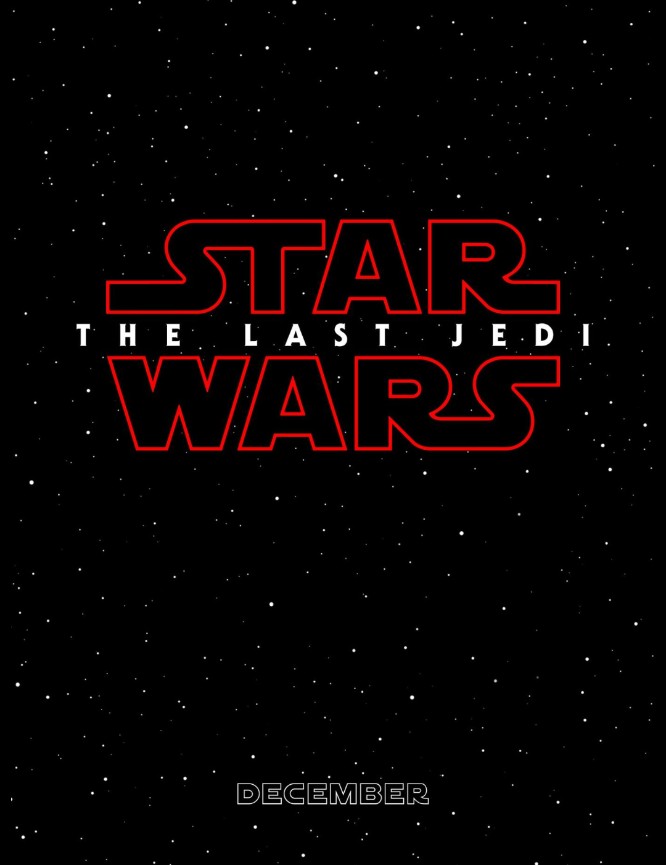
The Last Jedi Font
Fonts in UseStar Wars: The Last Jedi is the eighth installment in the Star Wars saga, directed by Rian Johnson. The movie follows Rey as she seeks guidance from Luke Skywalker, while the Resistance battles the First Order.
Herb Lubalin's ITC Serif Gothic Heavy is still the font used for the film title "The Last Jedi," just as it was for its predecessor, "The Force Awakens." However, the primary change in the title design is that the "Star Wars" main logo is now in red for the first time.